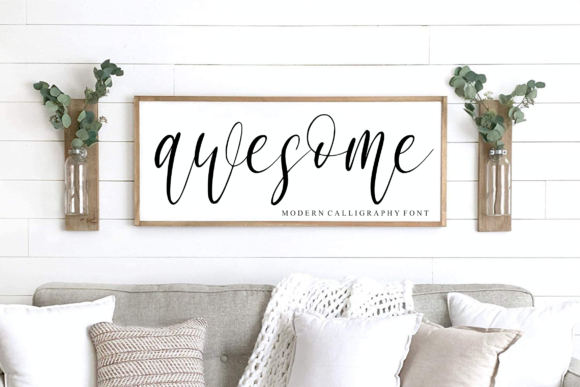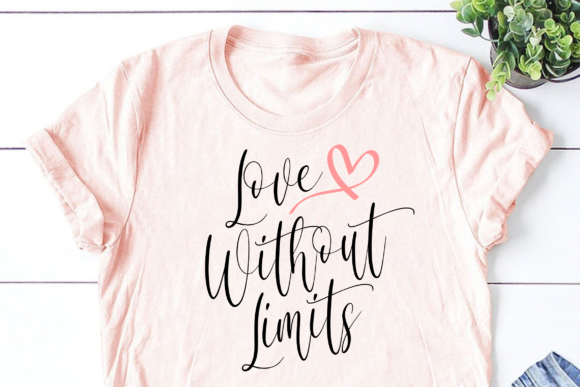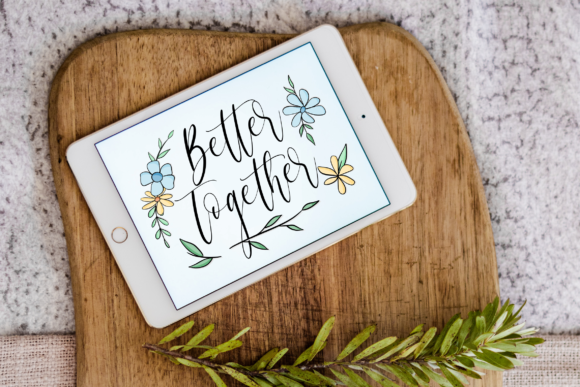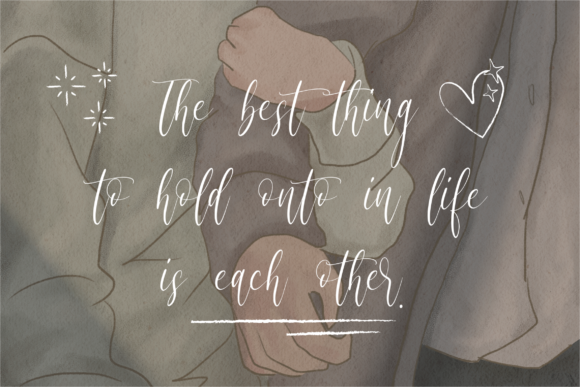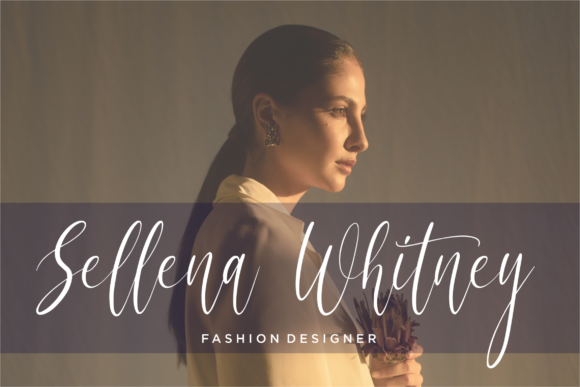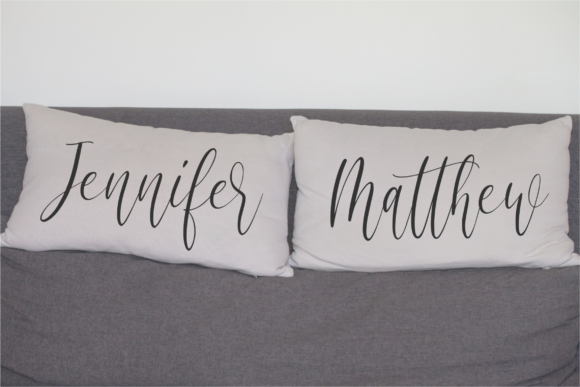
Introduction to Haventica Font
Have you ever stared at a blank canvas, trying to find the perfect font to bring your creative project to life? We’ve all been there – the struggle to find a font that perfectly captures the essence of our design. But what if we told you that there’s a font that can make your designs stand out from the crowd, effortlessly? Welcome to the world of Haventica Font – a modern calligraphy font that’s perfect for product packaging, branding projects, and so much more.
As a designer, you know how valuable it is to have high-quality design resources at your fingertips. The Haventica Font is one such resource that can elevate your creative projects to new heights. With its elegant and sophisticated design, this font is perfect for designers who want to add a touch of sophistication to their work.
Key Features of Haventica Font
- High-quality, professional design for creative projects and design resources
- Unique, modern design with a transparent background for flexible use
- Supports various languages and is suitable for a wide range of creative projects
- Available in 2 different font styles: regular and bold
- Perfect for graphic designers, artists, and anyone looking for a high-quality, free design resource
Honest Review: Haventica Font
As a designer, I’m always on the lookout for high-quality design resources that can elevate my creative project. The Haventica Font is one such find that caught my attention.
What works well: ✨ The font is sleek, modern, and versatile, making it perfect for a wide range of design applications. I love how it can be used for both digital and print projects, from logos to website typography. The font also comes with a transparent background, which makes it easy to customize and integrate into your design.
- Suitable for digital and print projects
Overall, I’m impressed with the Haventica Font, and I’d definitely recommend it for personal or non-commercial projects. While it has its limitations, the font’s quality and versatility make it a valuable addition to any designer’s toolkit.
Using Haventica Font in Creative Projects
With Haventica Font, you can elevate your creative project with a high-quality, unique font. Use it in conjunction with a transparent background to create visually striking designs. For best results, use the font in conjunction with other design elements that complement its style.
Tips for Getting the Most Out of Haventica Font
To get the most out of Haventica Font, experiment with different font sizes, colors, and styles to create visually appealing designs. Also, consider using the font in conjunction with other design elements to create a cohesive look.
Haventica Font is ideal for a variety of use cases, including:
- Graphic design and visual arts
- Print and digital design
Comparison to Haventica Font: Great Vibes has a more modern and sleek feel compared to Haventica Font, which has a more vintage and distressed look.
Comparison to Haventica Font: Pacifico has a more elegant and sophisticated feel compared to Haventica Font, which has a more casual and vintage look.